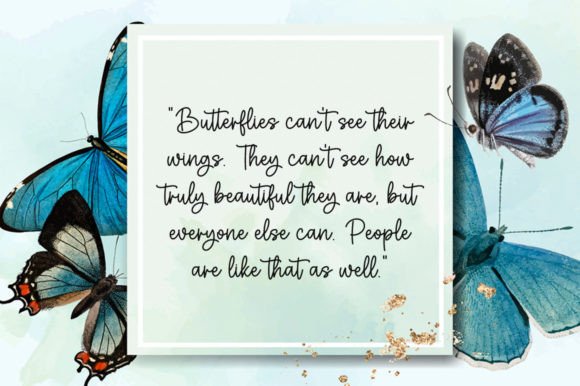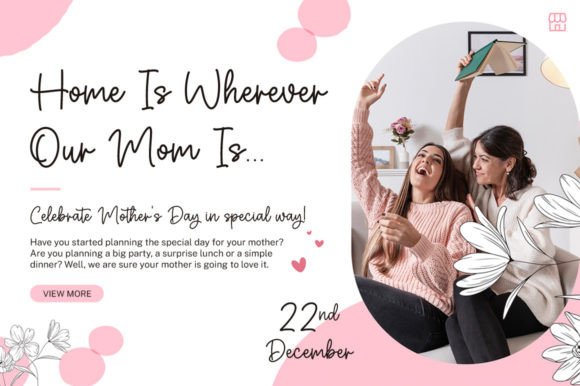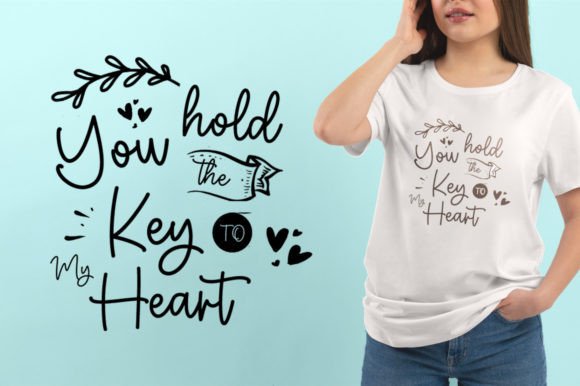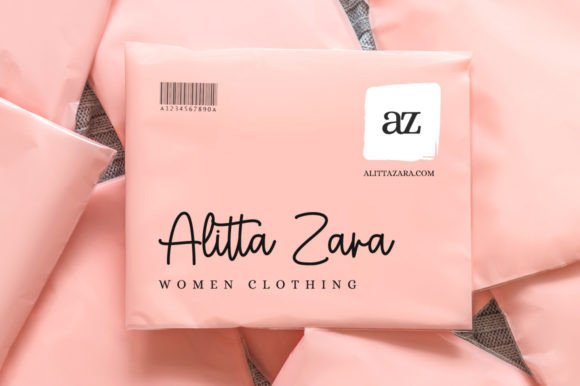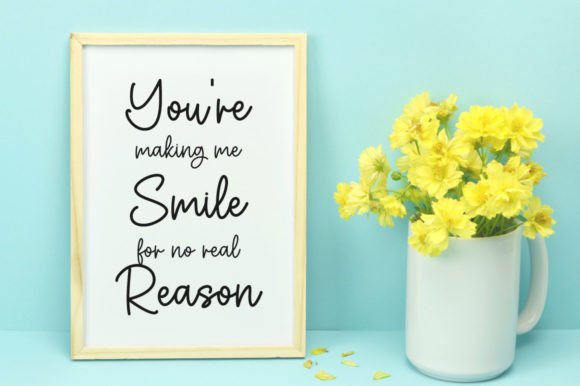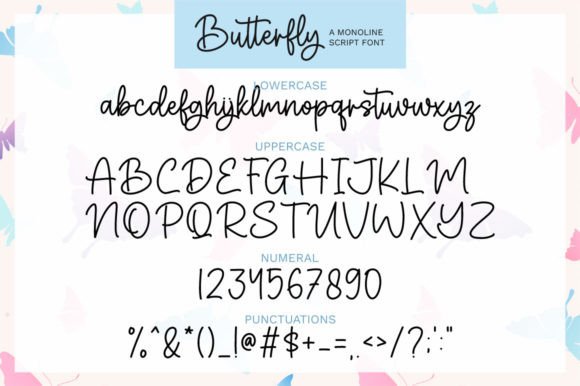
Introducing the Butterfly Font: A Beautiful Handwritten Script for Romantic Designs
Are you a designer or crafter looking for a font that can add a touch of elegance and romance to your projects? Look no further than the Butterfly Font, a stunning handwritten script that’s perfect for creating beautiful wedding invitations, cards, and other designs that require a personal and sophisticated touch.
What is the Butterfly Font?
The Butterfly Font is a elegant handwritten font that’s characterized by its dainty and joyful feel. This lovely script is designed to bring a sense of whimsy and romance to your designs, making it ideal for a variety of creative projects. Whether you’re creating wedding invitations, greeting cards, or other paper crafts, the Butterfly Font is sure to impress.
Key Features of the Butterfly Font
- Elegant Handwritten Script: The Butterfly Font features a beautiful, flowing script that’s reminiscent of handwritten writing.
- Dainty and Joyful: This font has a light, airy feel that’s perfect for creating romantic and whimsical designs.
- Romantic and Personalized: The Butterfly Font is designed to add a touch of elegance and sophistication to your designs, making it perfect for wedding invitations, cards, and other special projects.
- Versatile: This font can be used for a variety of design projects, from paper crafts to digital designs.
Uses for the Butterfly Font
The Butterfly Font is a versatile script that can be used for a variety of design projects, including:
- Wedding Invitations: Create beautiful, custom wedding invitations that set the tone for a romantic and elegant wedding.
- Greeting Cards: Add a personal touch to your greeting cards with the Butterfly Font, perfect for special occasions like birthdays, anniversaries, and holidays.
- Paper Crafts: Use the Butterfly Font to create beautiful paper crafts, such as scrapbook pages, journal entries, and other DIY projects.
- Digital Designs: This font can also be used for digital designs, such as social media graphics, blog posts, and other online content.
Why Choose the Butterfly Font?
There are many fonts to choose from, but the Butterfly Font stands out for its unique combination of elegance and playfulness. Here are just a few reasons why you might choose this font for your next design project:
- Unique and Eye-Catching: The Butterfly Font is a one-of-a-kind script that’s sure to grab attention and add visual interest to your designs.
- Easy to Read: Despite its elegant feel, the Butterfly Font is easy to read and understand, making it perfect for body text and other written content.
- Customizable: This font can be customized to fit your design needs, including adjusting the size, color, and style to match your brand or project.
Tips for Using the Butterfly Font
To get the most out of the Butterfly Font, here are a few tips to keep in mind:
- Pair with Other Fonts: Combine the Butterfly Font with other fonts to create visual interest and add depth to your designs.
- Use for Headings and Titles: This font is perfect for headings and titles, where its elegant feel can really shine.
- Experiment with Colors: Try out different colors and textures to add an extra layer of interest to your designs.
The Butterfly Font is a beautiful, elegant handwritten script that’s perfect for designers and crafters looking to add a touch of romance and whimsy to their projects. With its dainty and joyful feel, this font is ideal for wedding invitations, cards, and other designs that require a personal and sophisticated touch. Whether you’re a seasoned designer or just starting out, the Butterfly Font is a great choice for any project that needs a little extra elegance and charm.